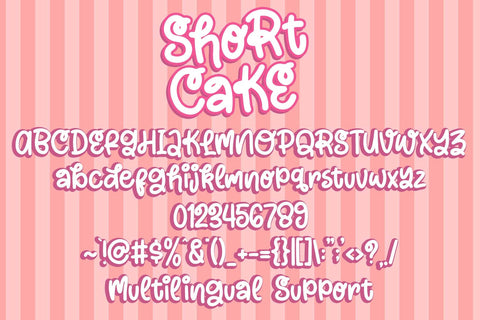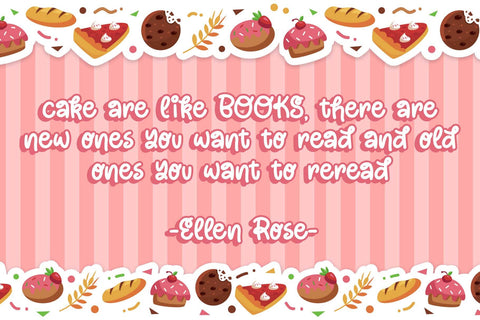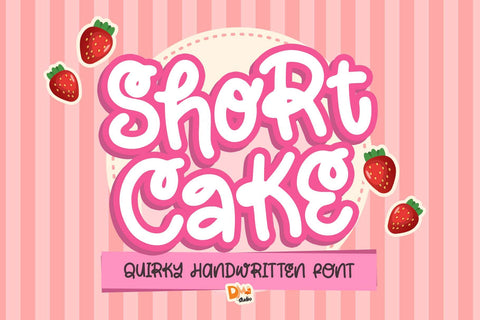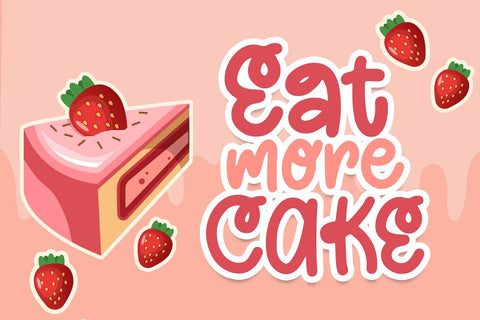
Short Cake Font
Short Cake Font is a delightful and versatile typeface that brings sweetness and charm to your designs. With its playful letterforms and unique style, this font is perfect for a variety of creative projects, including branding, invitations, posters, and more.
- Playful and Charming Design: The Short Cake Font features a playful and charming design that adds a touch of whimsy to your projects. Its unique letterforms give your text a distinctive and eye-catching appearance.
- Versatility in Application: This font is versatile and suitable for a wide range of design applications. Whether you're working on a birthday invitation, a bakery logo, or a greeting card, the Short Cake Font adds a sweet and inviting element to your creations.
- Uppercase and Lowercase Letters: The font includes both uppercase and lowercase letters, providing flexibility and creative freedom in your designs. Mix and match the cases to create visually appealing and balanced typography.
- Punctuation and Symbols: In addition to the alphabet, the font includes a comprehensive set of punctuation marks, numerals, and common symbols. This ensures consistency and ease of use when incorporating the font into your design projects.
Elevate your designs with the delightful and charming Short Cake Font. Let its playful letterforms and versatility enhance your creative projects, making them irresistibly sweet and inviting.